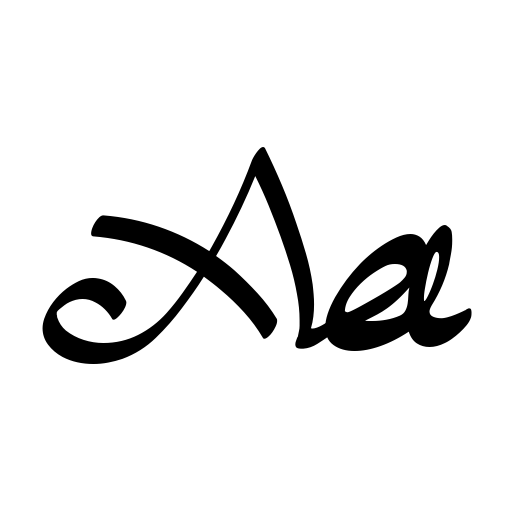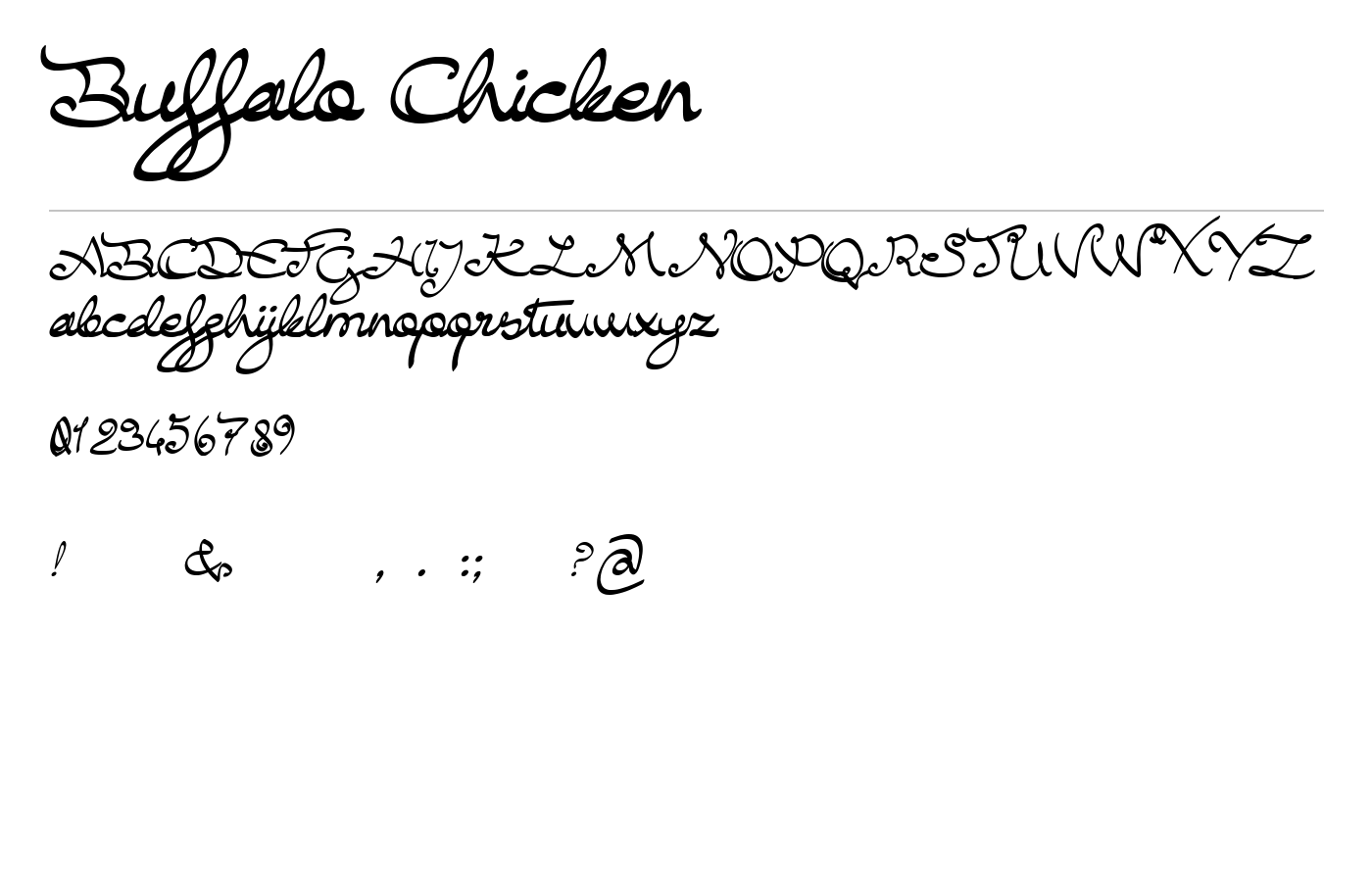
Buffalo Chicken is a lively, handwritten script font with a playful and artistic flair, featuring intricate loops and unique letterforms that convey a casual, creative vibe. Its medium weight and fluid strokes make it perfect for expressive branding, invitations, or signage where a personal and approachable style is desired. This font works best in creative projects that need a touch of individuality and charm.
Buffalo Chicken Font
About Buffalo Chicken Font
| Designer | Roland Huse |